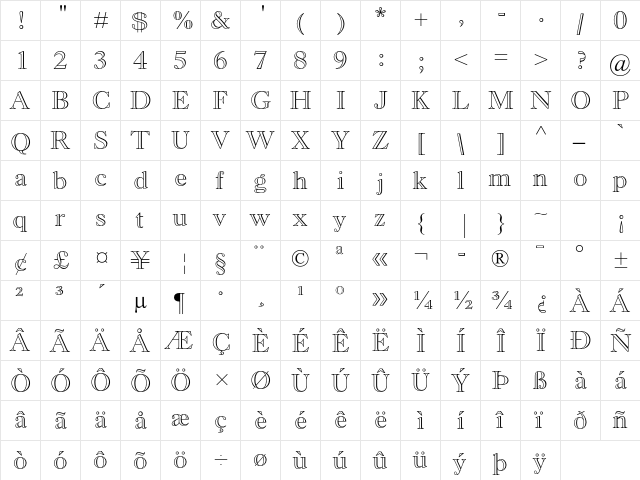
Monotype Old Style MT Std Bold Outline
Design Context for Monotype Old Style MT Std Typeface
Monotype Old Style MT Std brings ornamental detail and strong personality to headlines and identities, where visual impact matters more than quiet functionality. Its bold stroke weight gives it real presence on the page.
Font Pairing: Pair with a clean neutral sans-serif for body copy to let Monotype Old Style MT Std's character lead without overwhelming the composition.
Pro Tip: Use Monotype Old Style MT Std exclusively at display sizes — it was designed to be seen, not read at length. Let a neutral companion handle body copy.